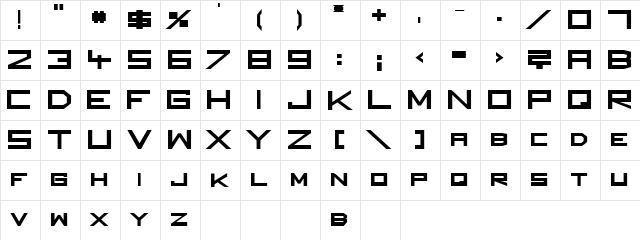
Complete Square Unique ExtraBold glyph index. Displaying only characters natively supported by Square Unique ExtraBold font.
Square Unique is a composed and adaptable typeface that performs quietly and consistently across a wide range of design contexts. Its bold stroke weight gives it real presence on the page.